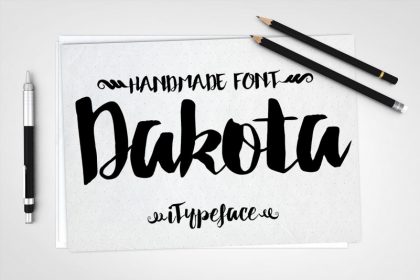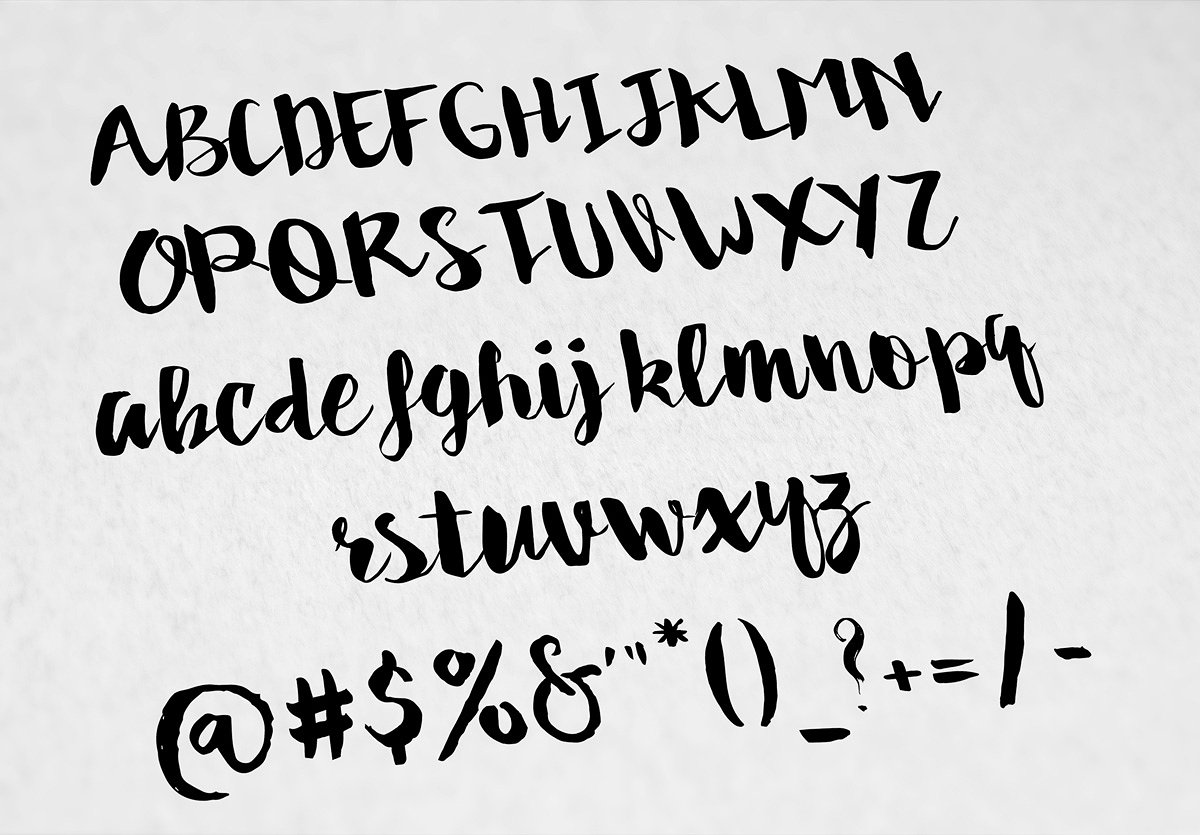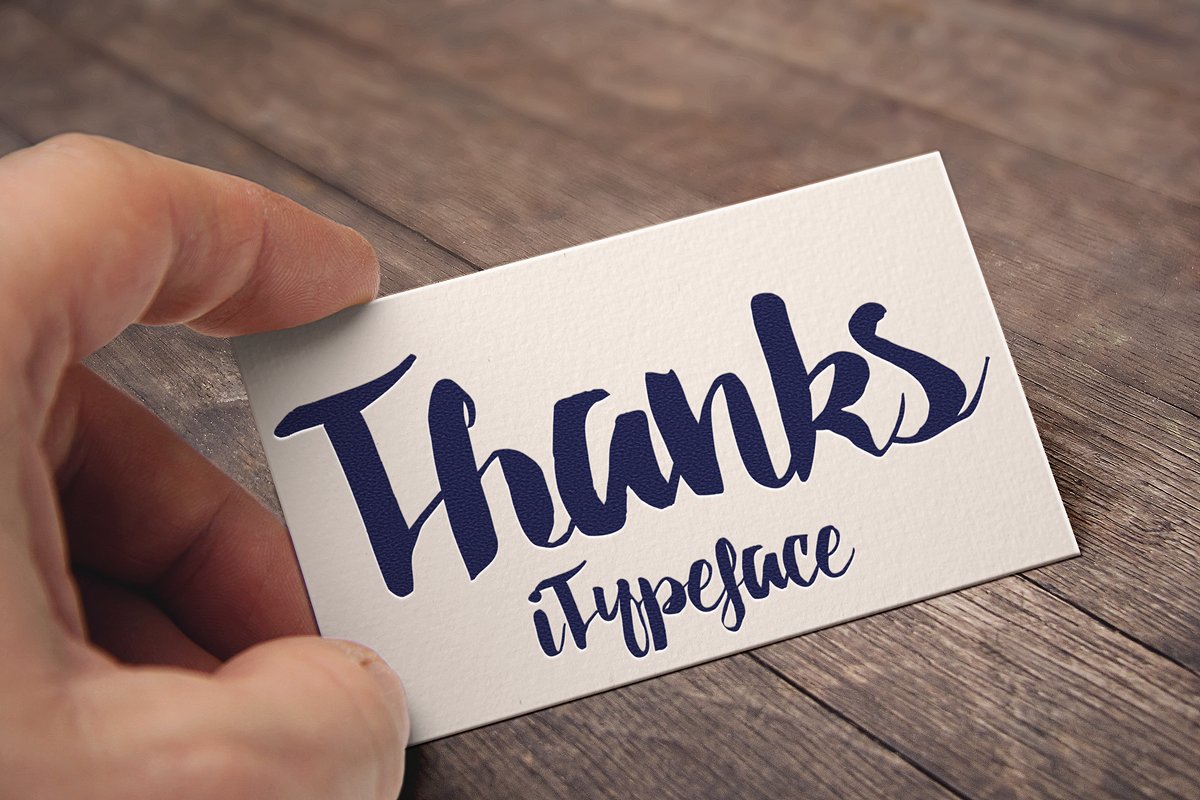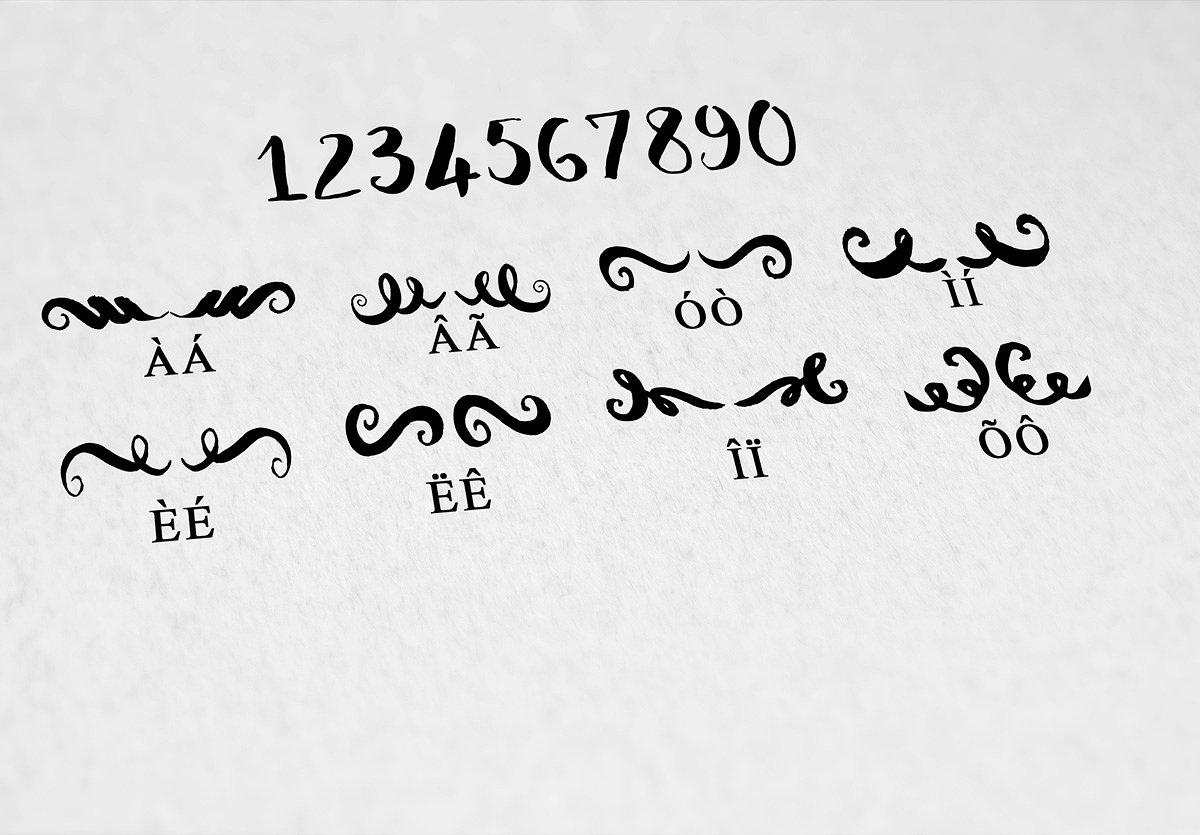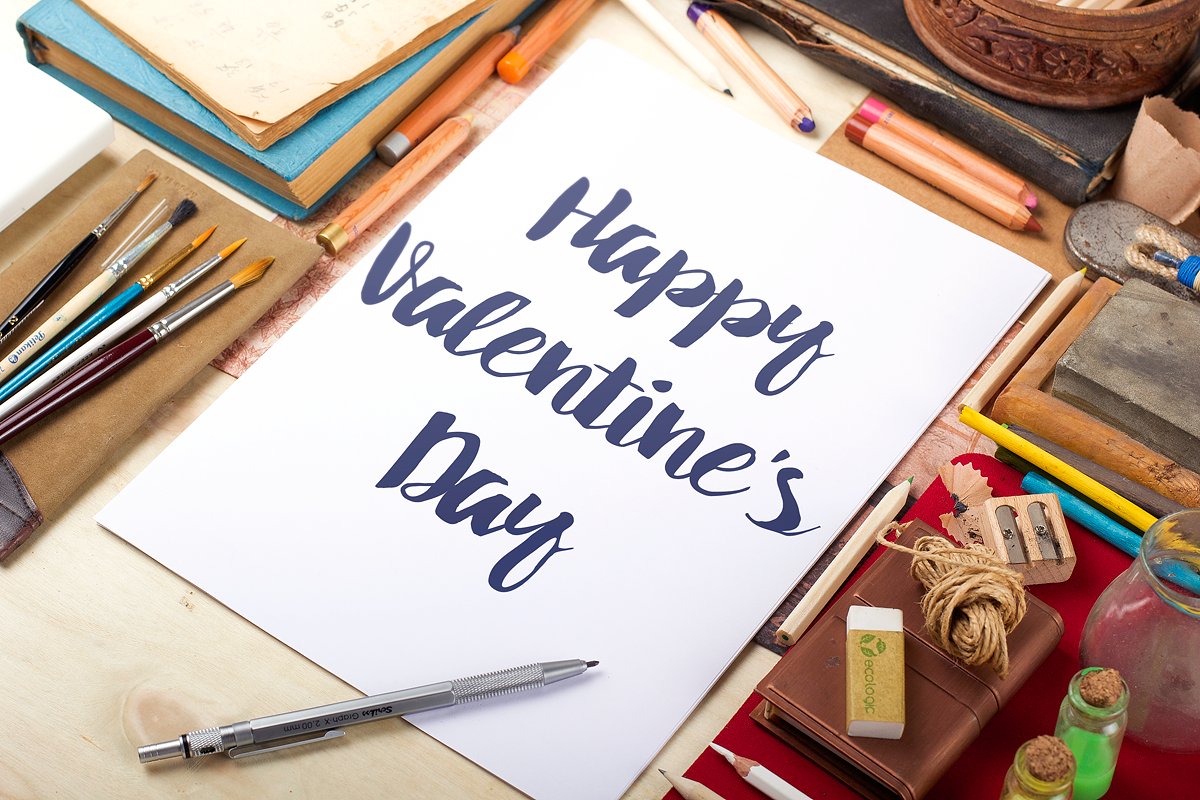
Dakota Script Font
Dakota is a modern calligraphy typeface with a dramatic movement. It suitable for wedding invitation, greeting cards, watercolor based design, or anything that need natural feeling to put on to.